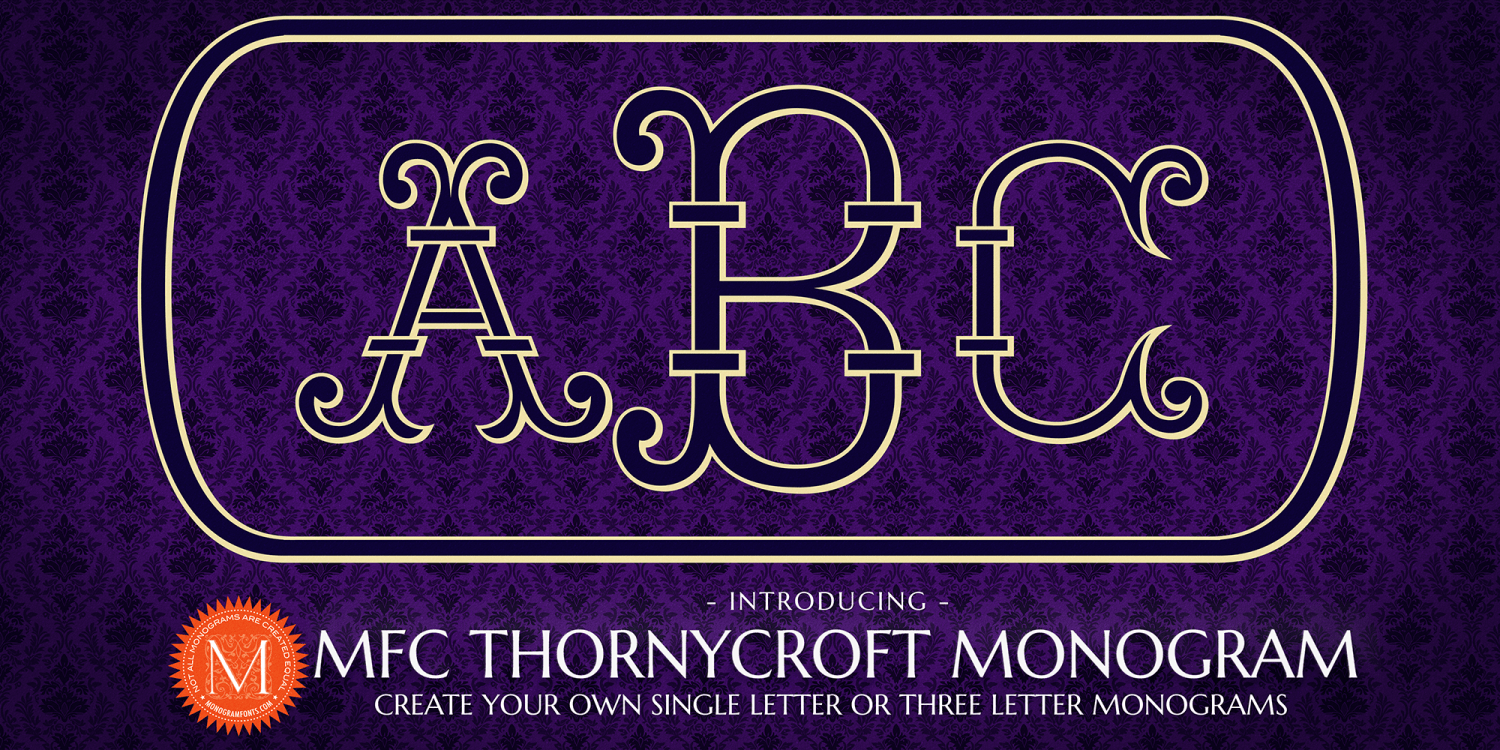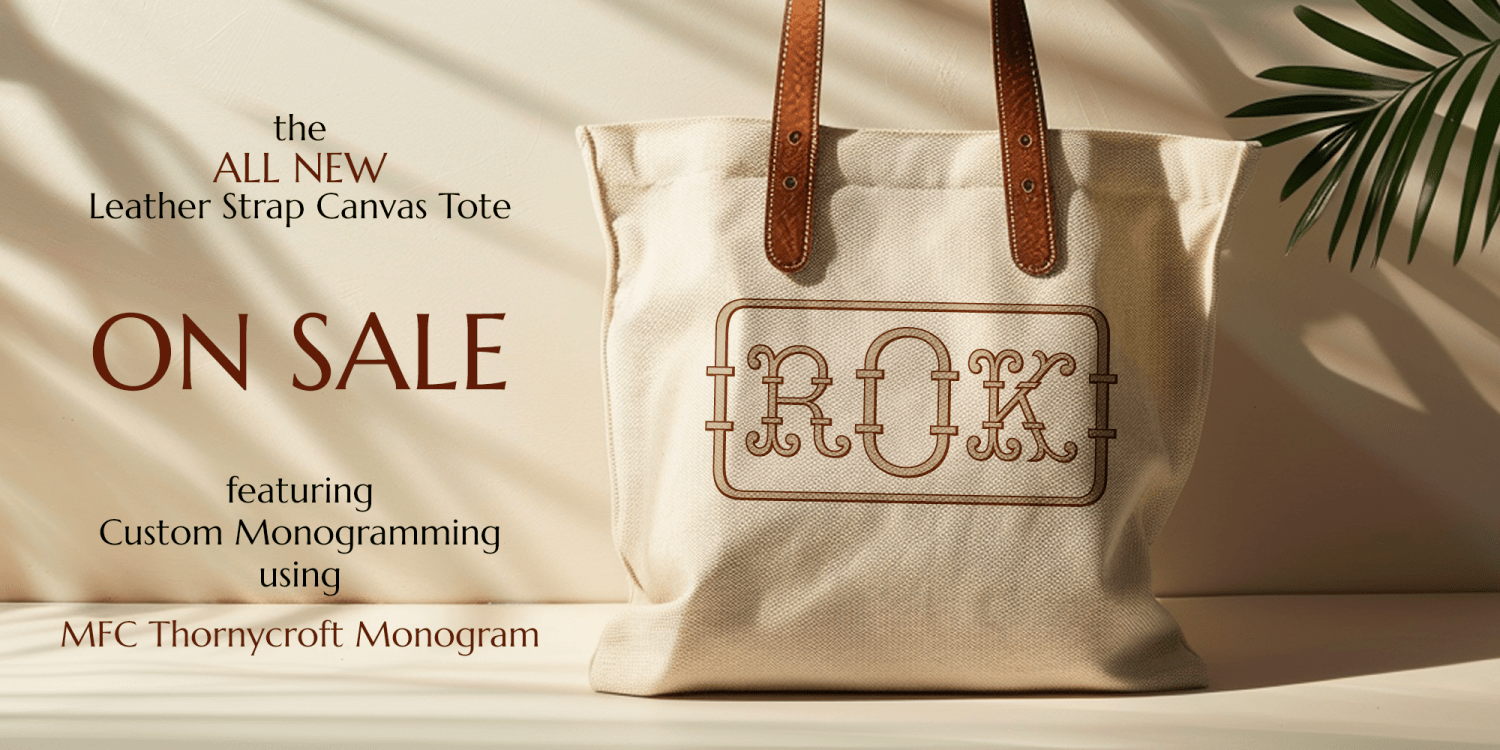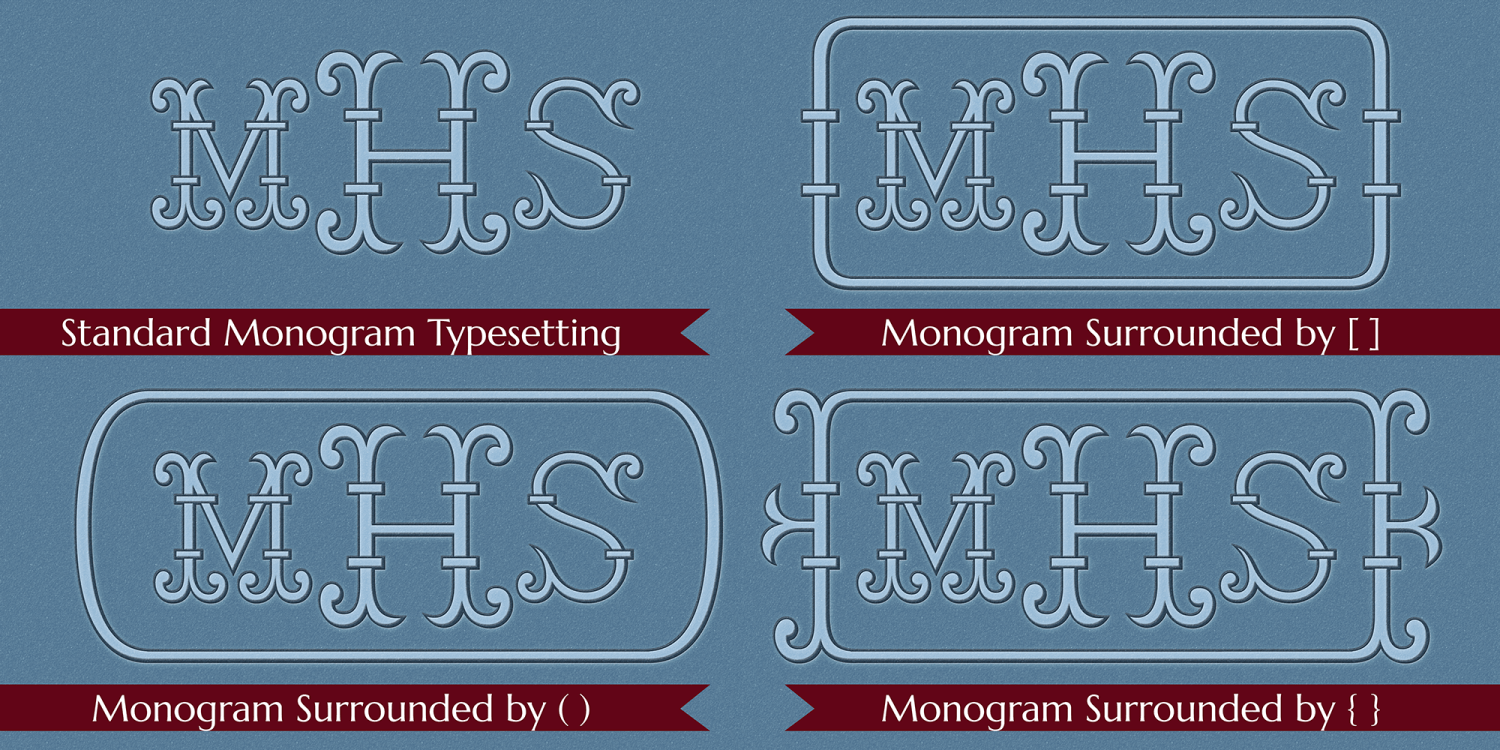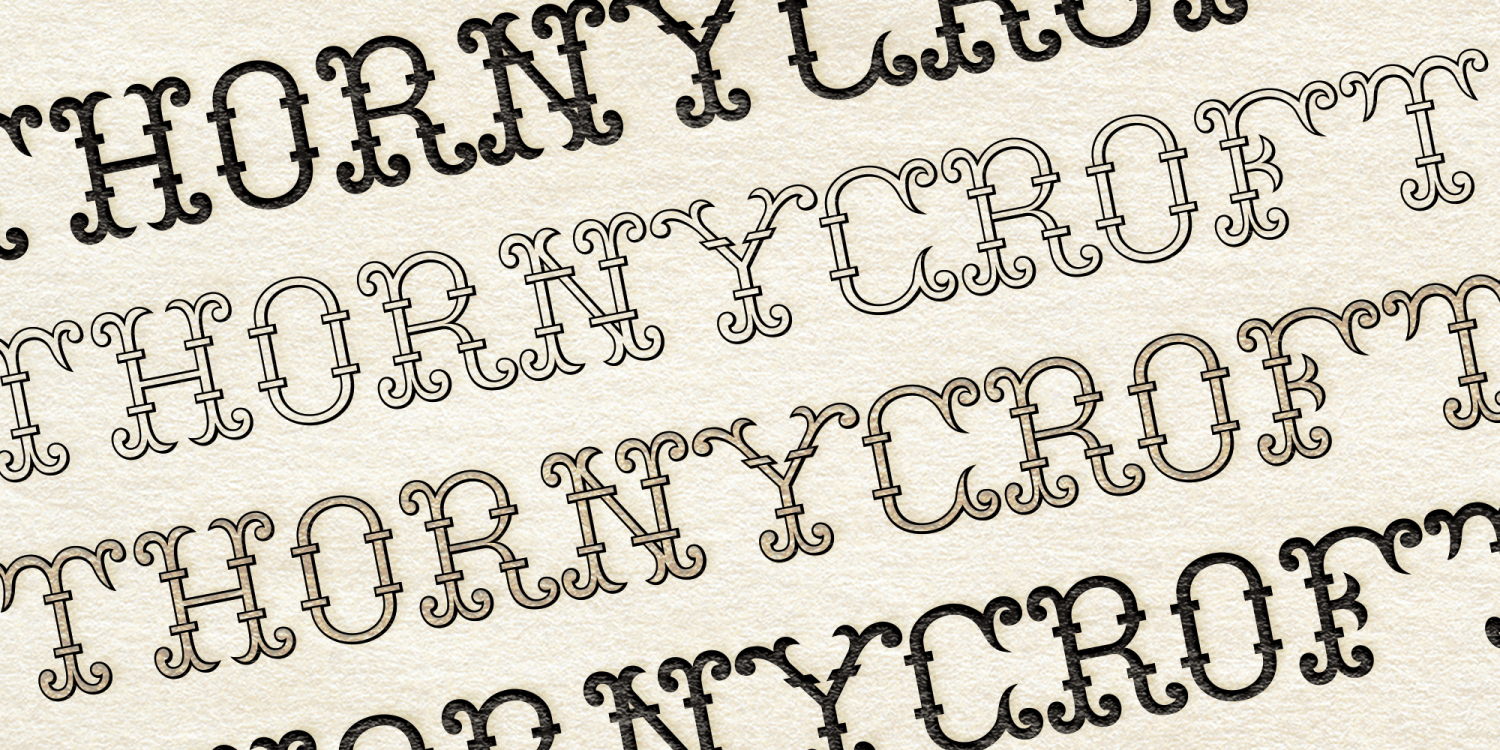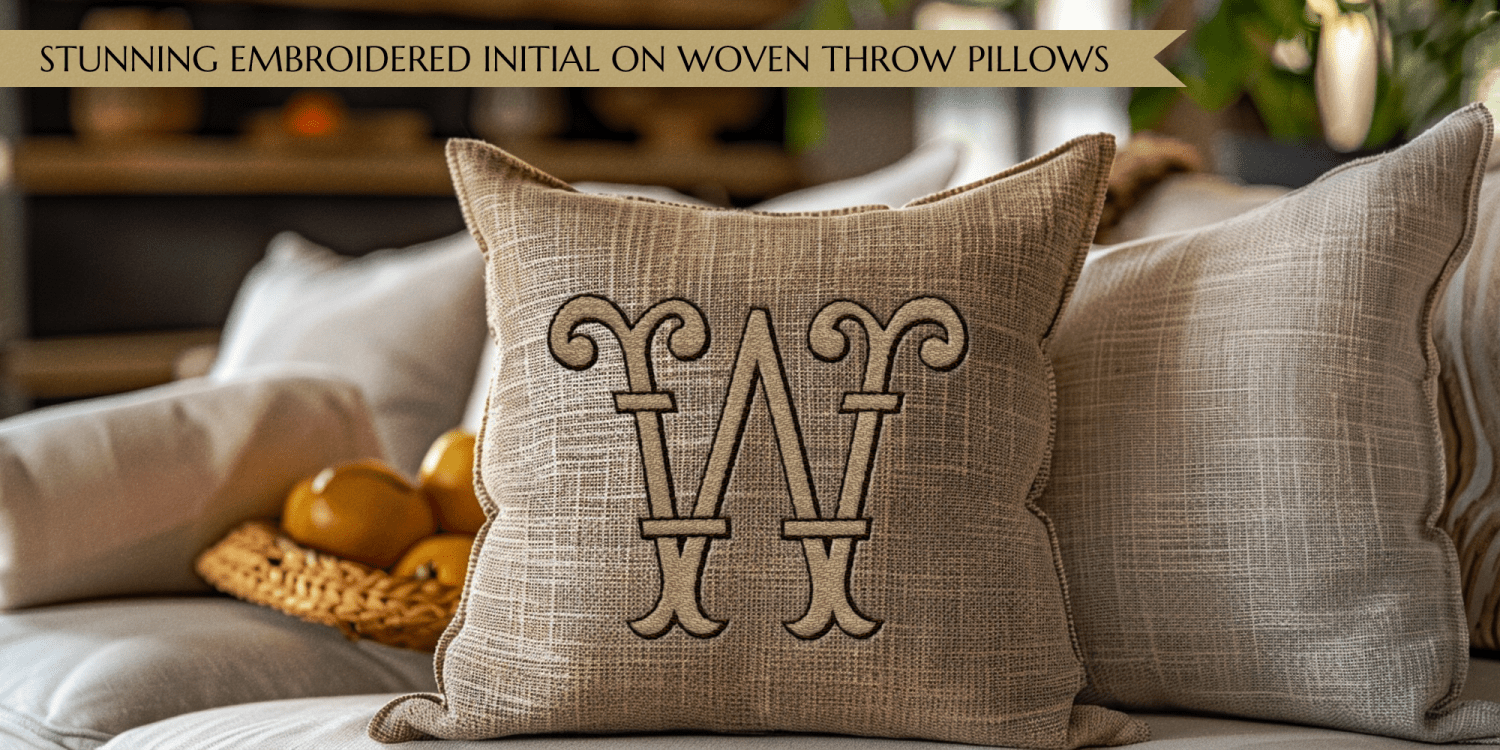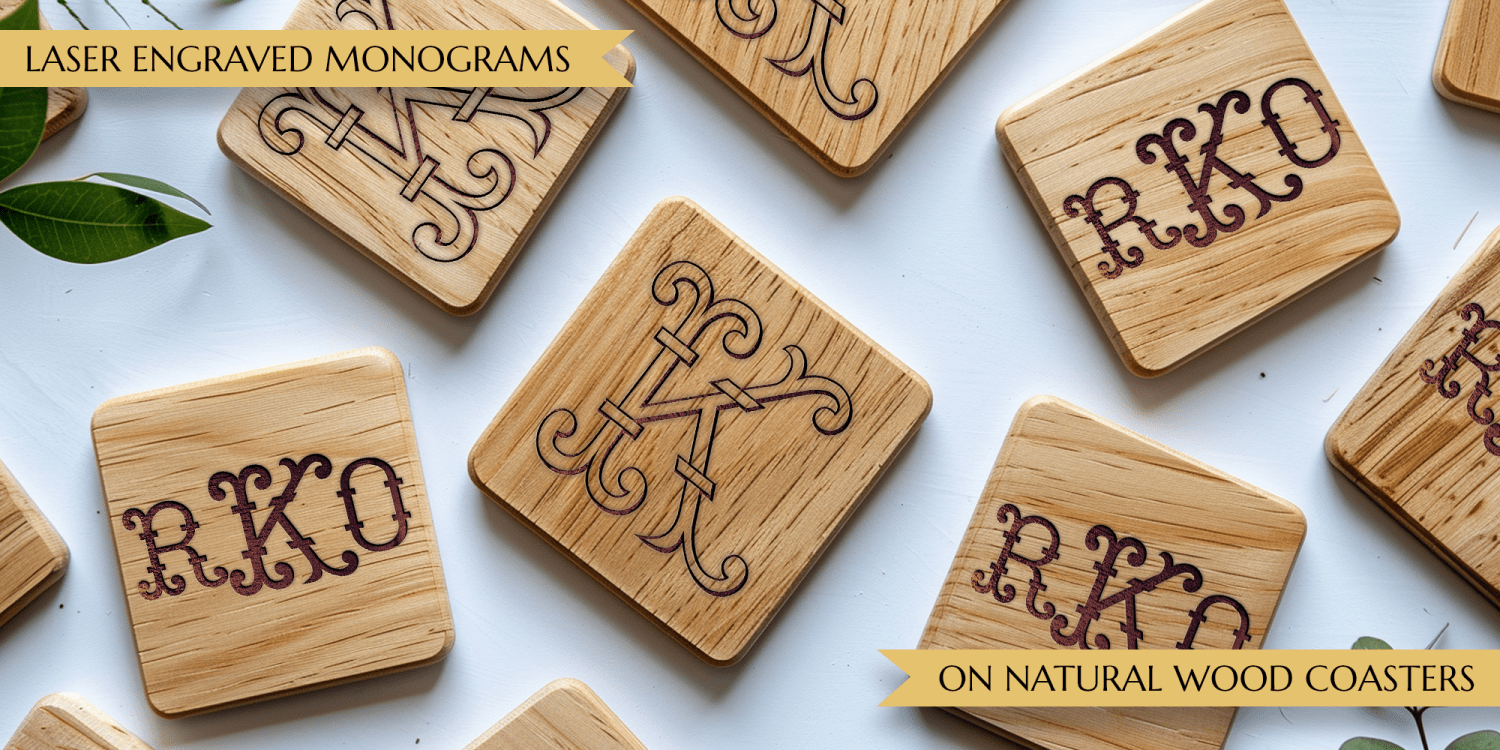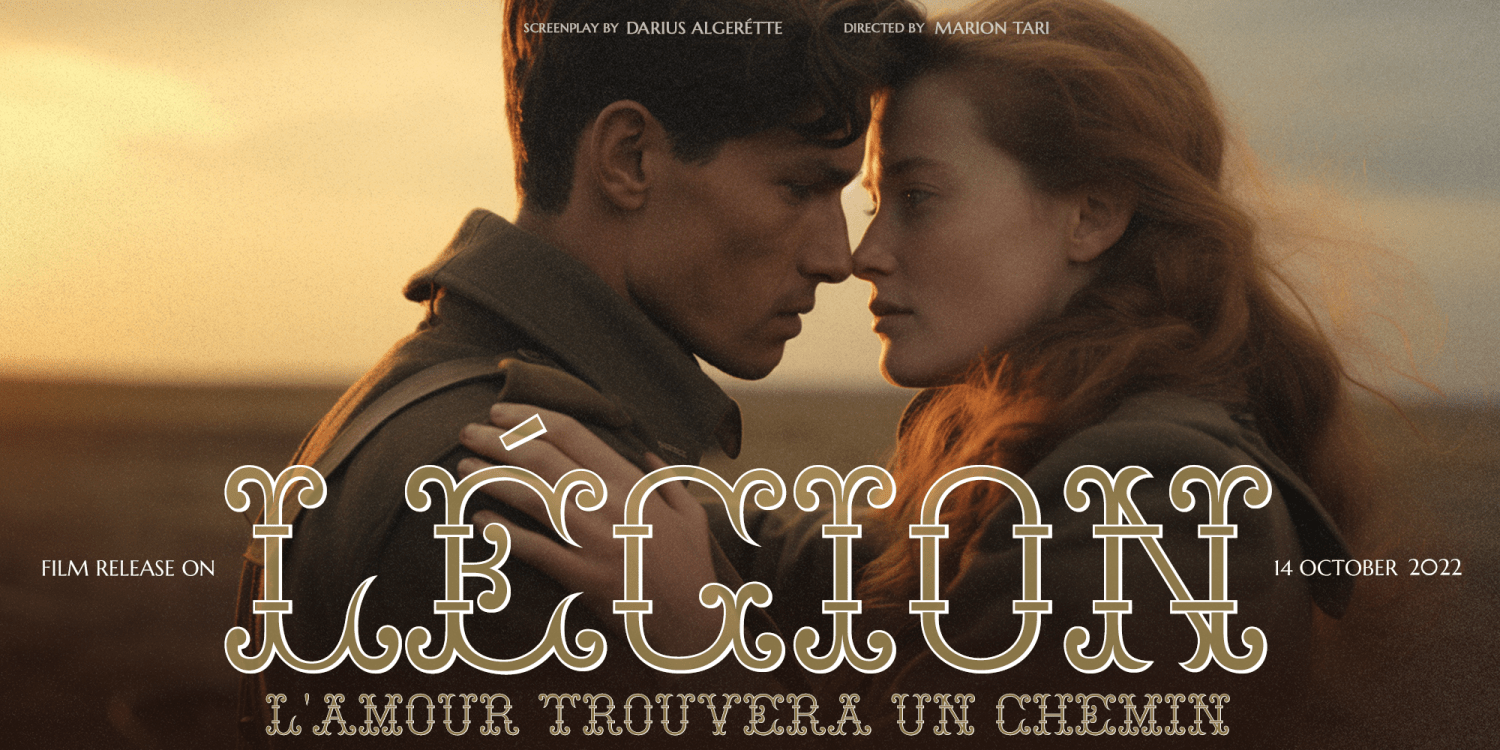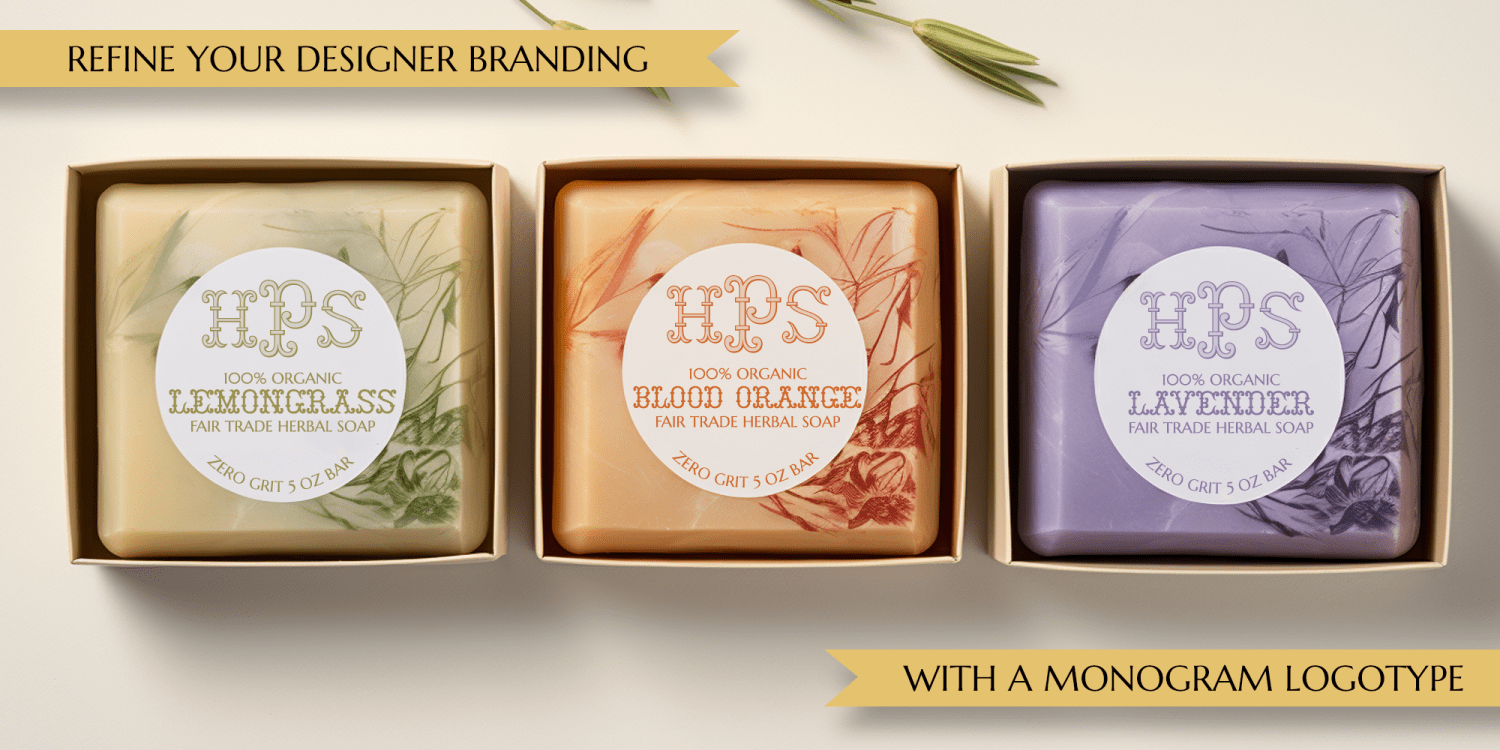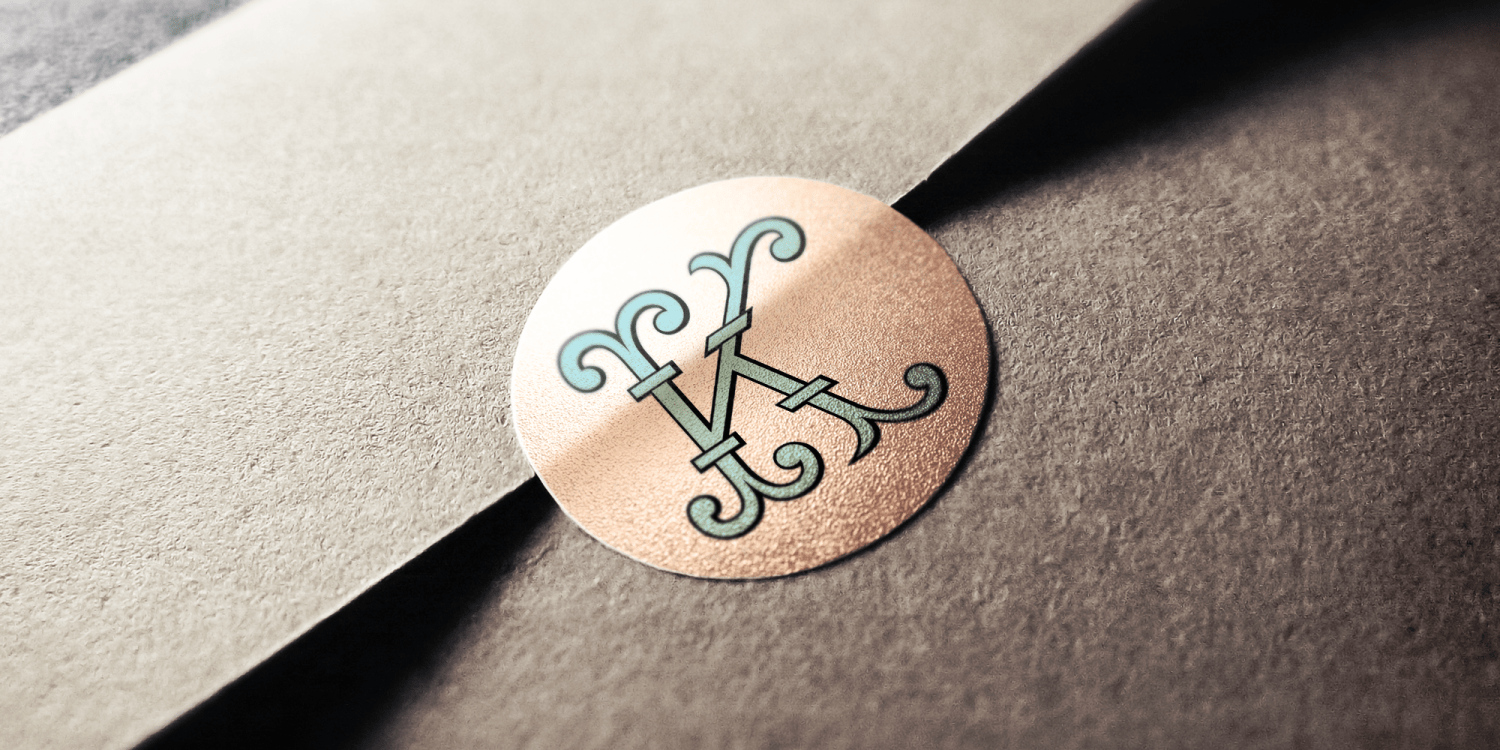
MFC Thornycroft Monogram
The inspiration source for MFC Thornycroft Monogram is a beautiful letterset from the "Ouvrages de Dames Maison Sajou - Album No. 134" by Sajou from the late 1800's. This family includes two fonts, the original MFC Thornycroft Monogram, and MFC Thornycroft Monogram Solid which can be used alone or combined for a chromatic look. MFC Thoryncroft Monogram includes a full extended Latin character set with international accented characters for titling settings.
You can also surround any monogram with ( ) { } or [ ] to create an enclosed monogram look.